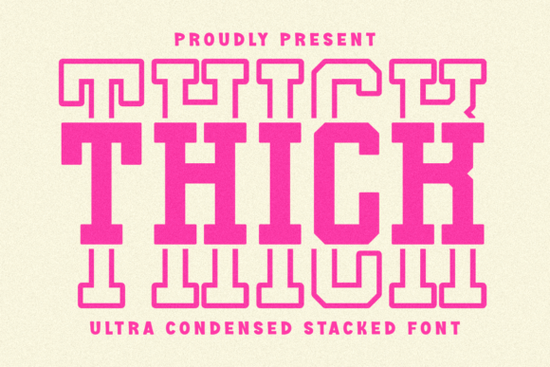
If you design for print-on-demand, chances are you're always hunting for typefaces that grab attention fast. A thick stacked font delivers exactly that: bold, condensed letters that sit on top of each other to create a strong, layered look. The Thick Stacked Font takes this idea further by pairing a solid version with a matching outline font, so you can build 3D typography without extra software. It's built for athletic or college-style designs think T‑shirts, sports logos, and poster headlines that need to stand out from a distance.
How can you use Thick Stacked Font in your next design project?
The layered look makes it perfect for apparel. You can print the solid letters in one color and the outline letters slightly offset in another to create a shadow effect no need for complex vector work. The ultra‑condensed shape also means you can fit longer words on a shirt or hat without shrinking the text too small.
- T‑shirt graphics – Use the solid layer as the main text and the outline layer as a contour for a sporty, vintage vibe.
- Logo marks – Combine the two fonts to build a custom wordmark for a team, gym, or streetwear brand.
- Poster headlines – Stack multiple words (each in a different color) for a dynamic, collage‑style effect.
- Merchandise – Mugs, tote bags, phone cases – any flat surface where high‑contrast lettering works.
What makes this stacked font different from other display fonts?
Most display fonts give you one weight, maybe a bold and a regular. The Thick Stacked Font gives you two complete alphabets – solid and outline – that are designed to layer perfectly. The letters are ultra‑condensed, so they feel tight and powerful, like classic varsity block letters but with a modern twist.
Another plus: the outline font works on its own. If you want a subtle, airy look, you can use just the outline version for a stencil‑like effect. The solid version alone is still a strong, readable sans‑serif that pairs naturally with scripts or serifs.
Pro tip: For a vintage sports look, keep the solid layer dark (navy or black) and the outline layer a lighter contrast (white or gold).